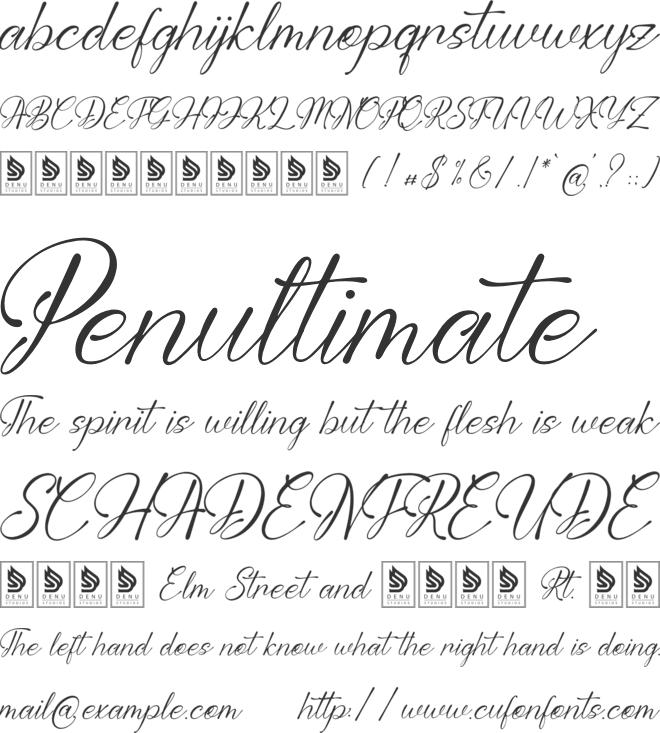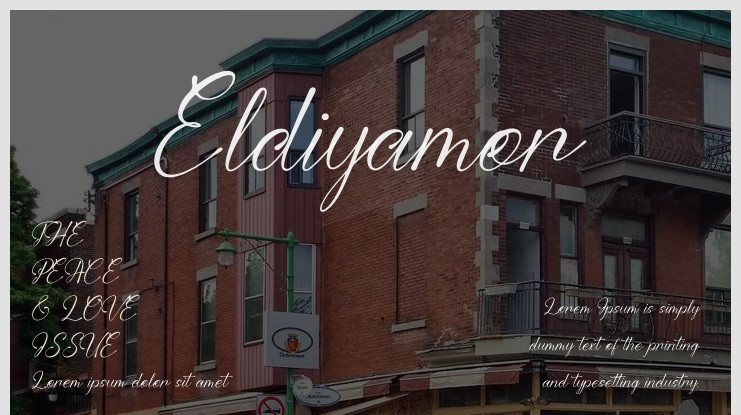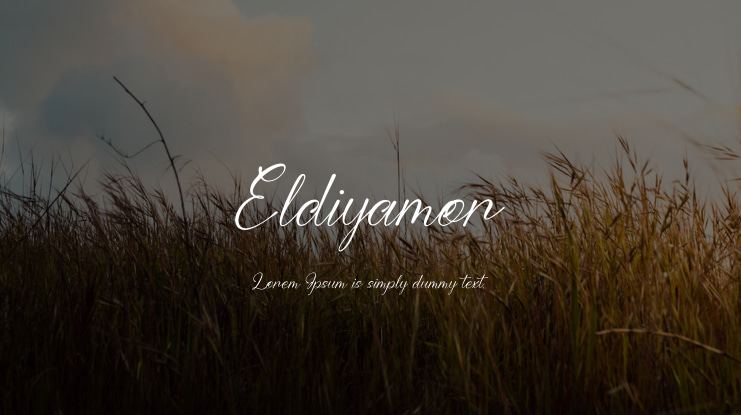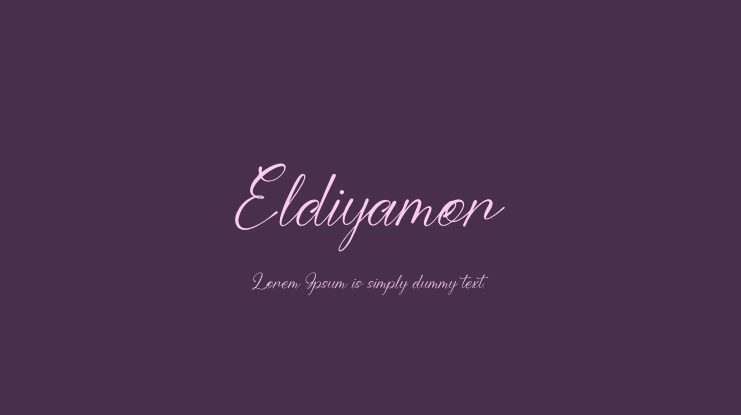
Eldiyamor Font
Eldiyamor | Handwriting Script is suitable for various projects like logos, branding, homeware designs, product packaging, mugs, quotes, posters, shopping bags, t-shirts, book covers, name cards, invitation cards, greeting cards, labels, photography, watermarks, special events, and all your other lovely projects that require a handwriting script touch.